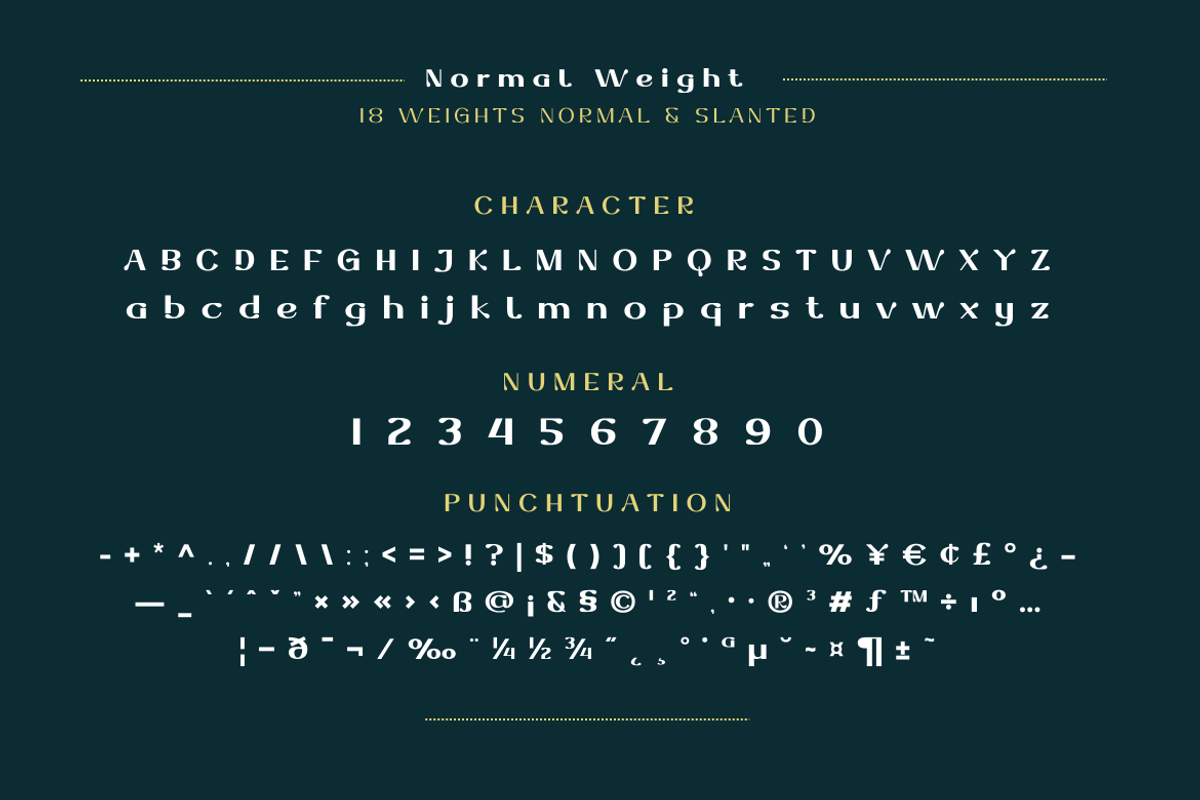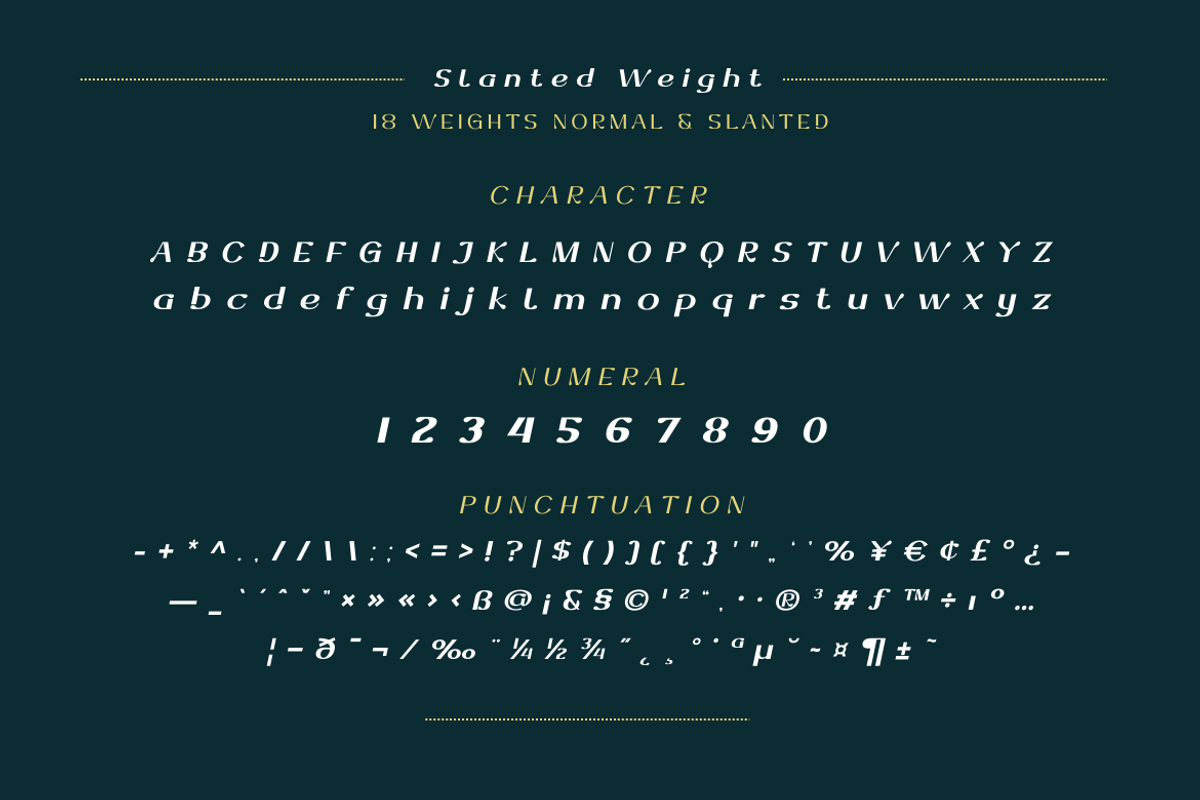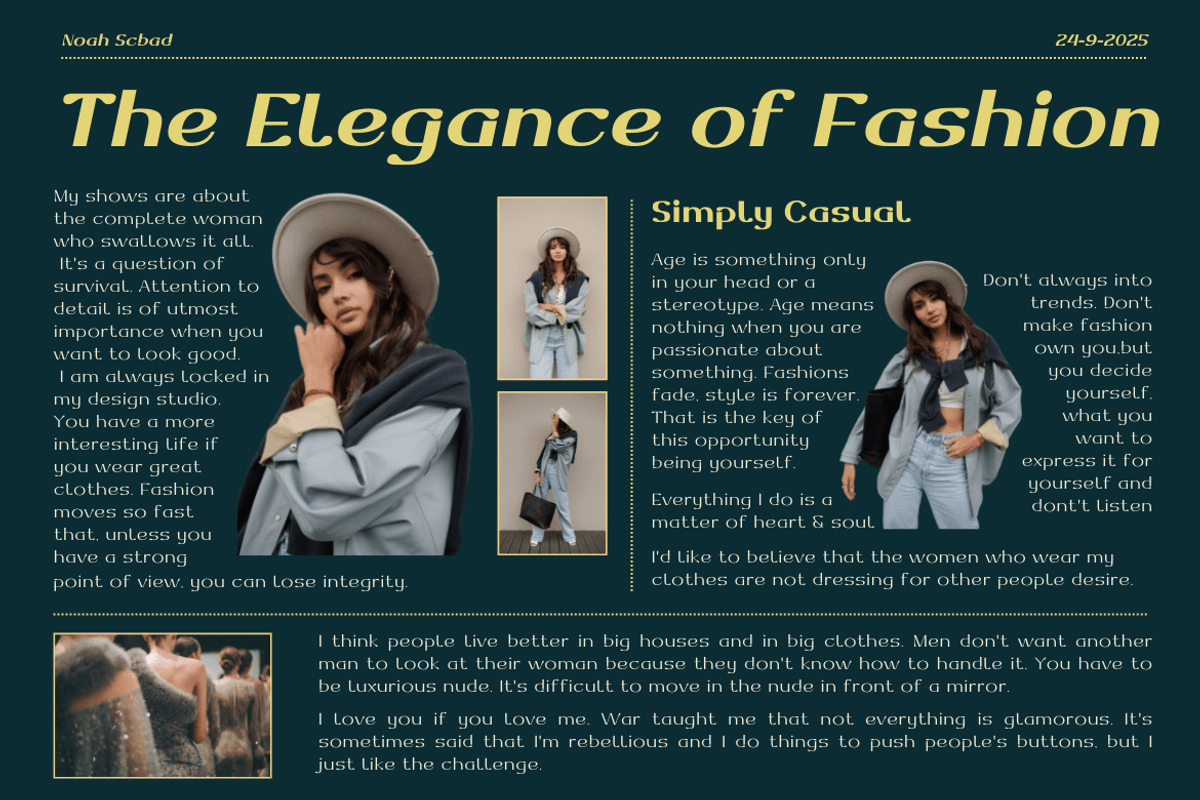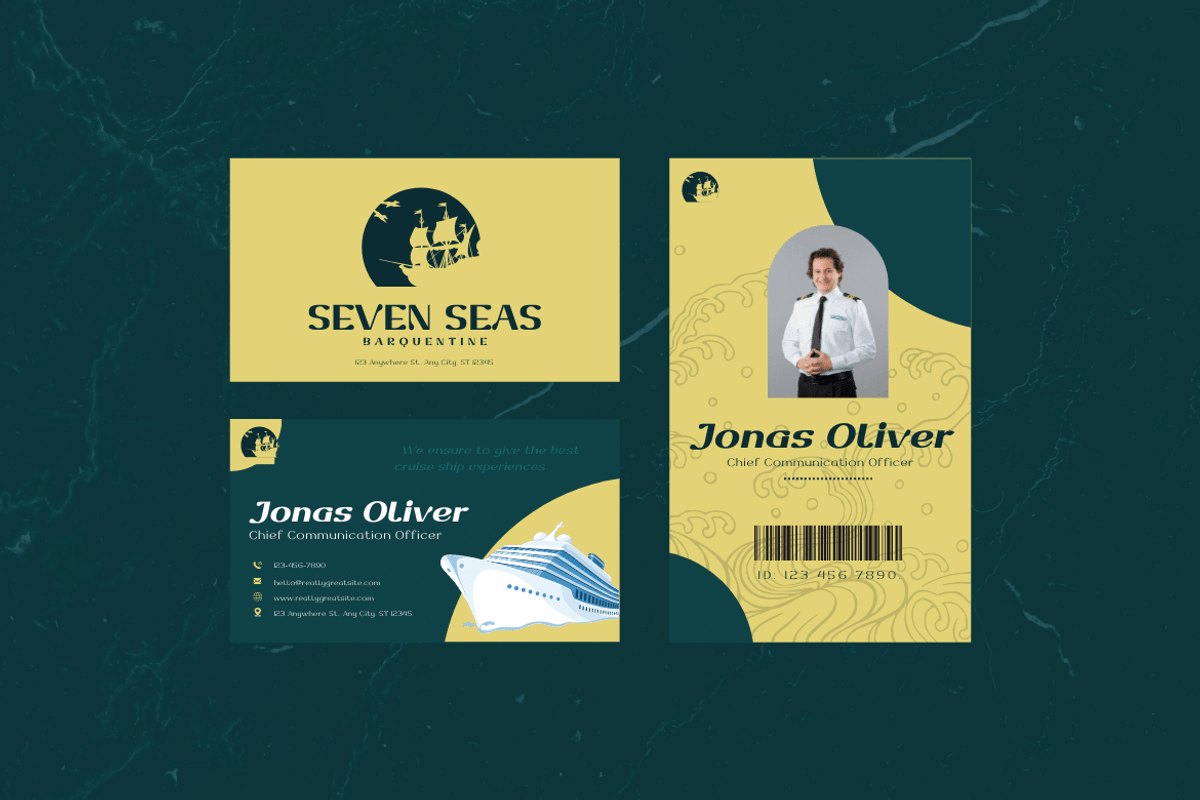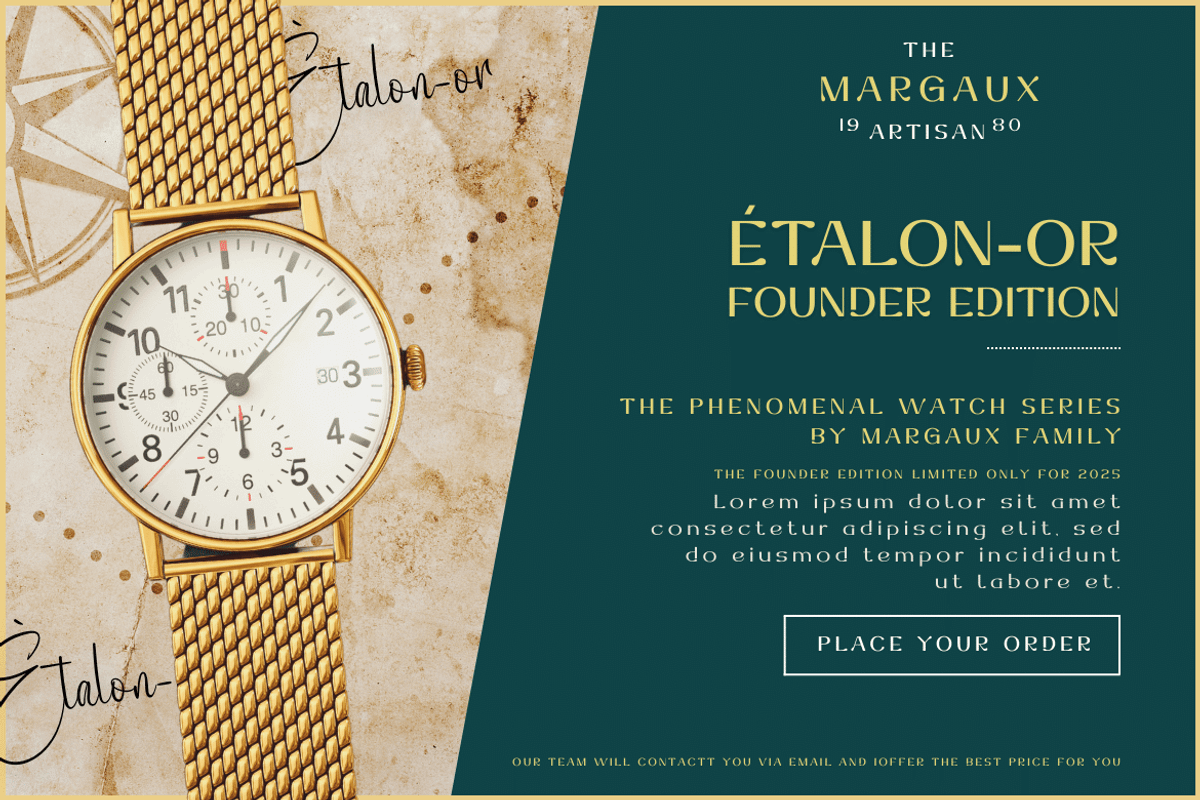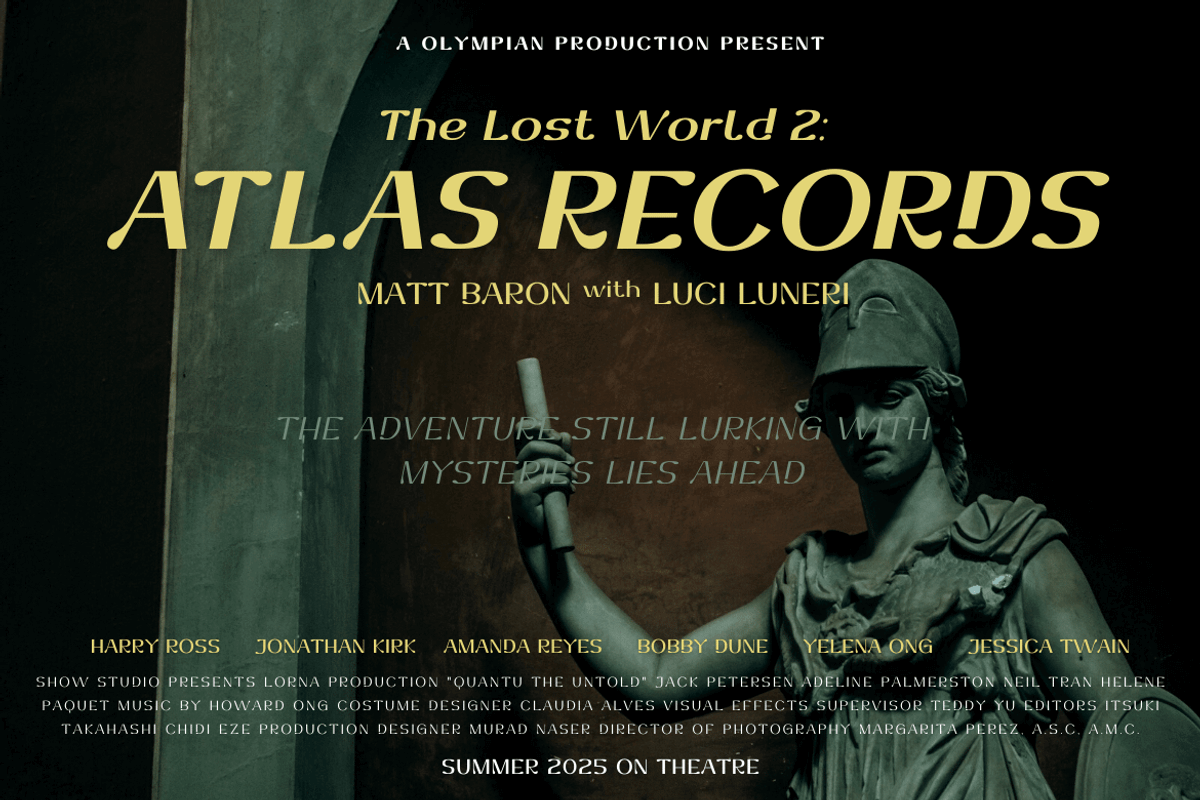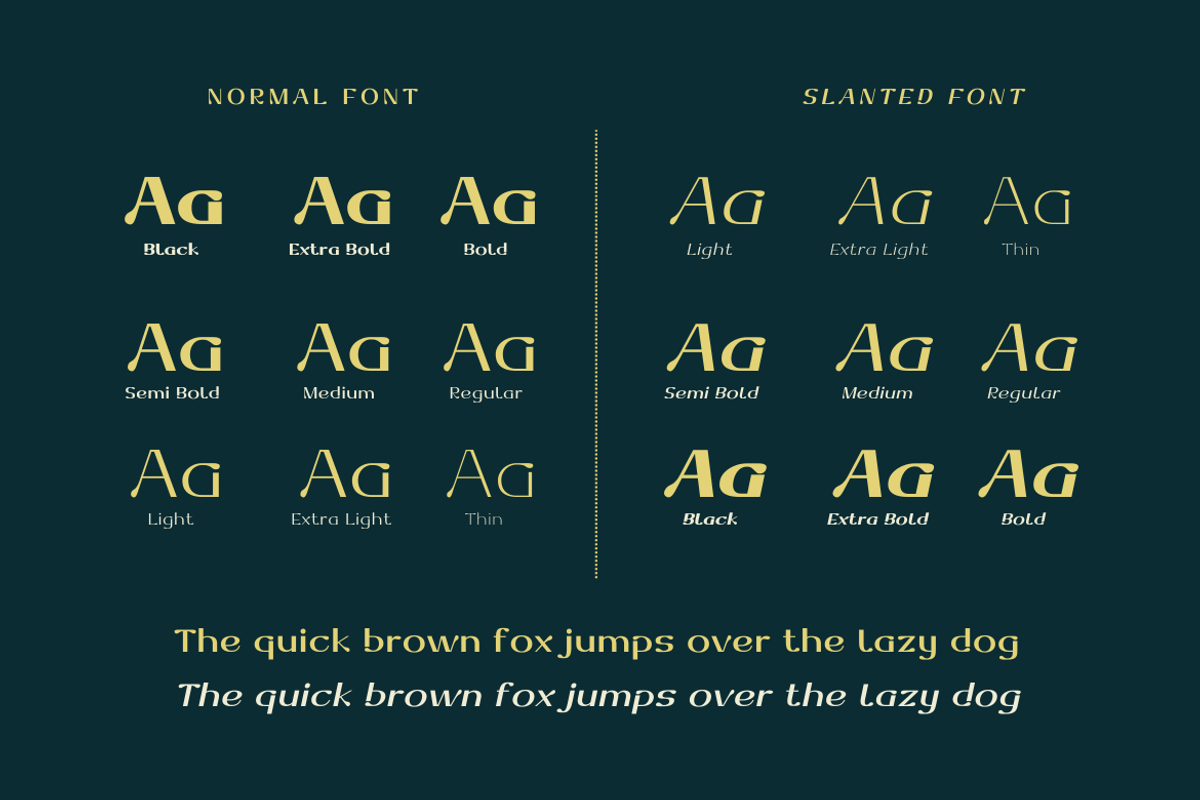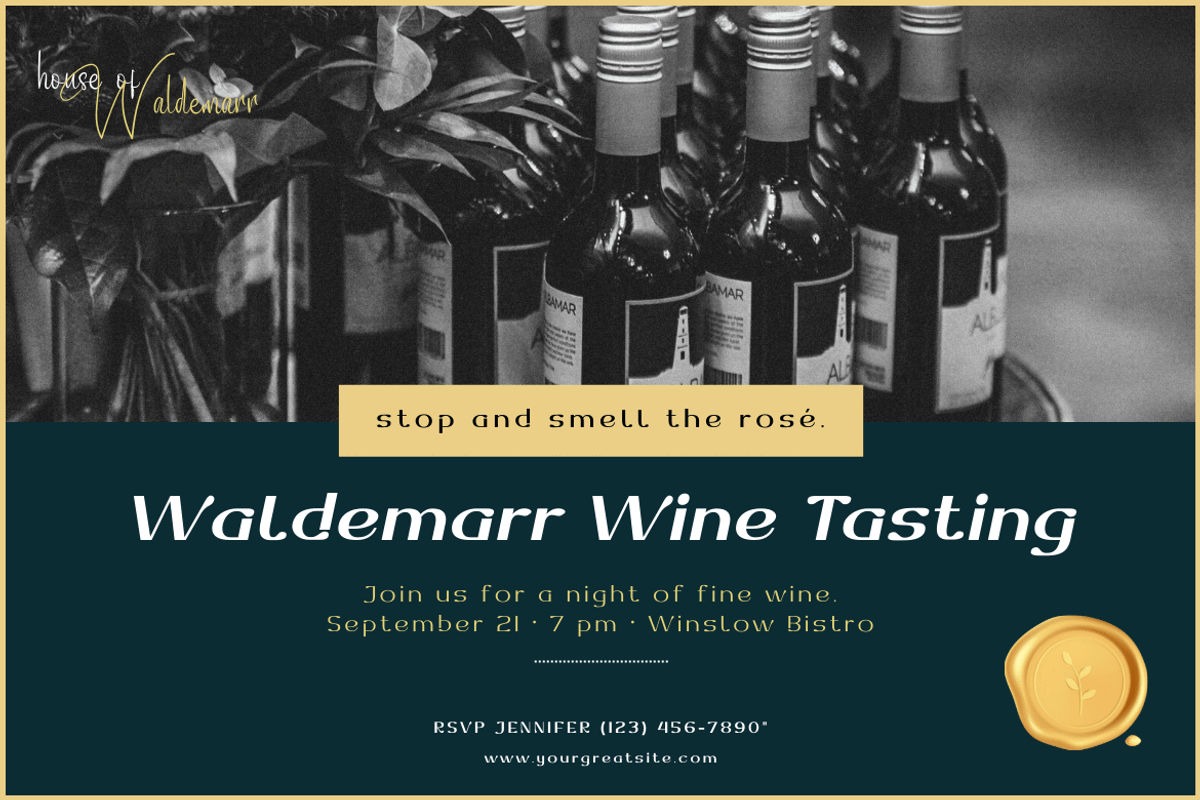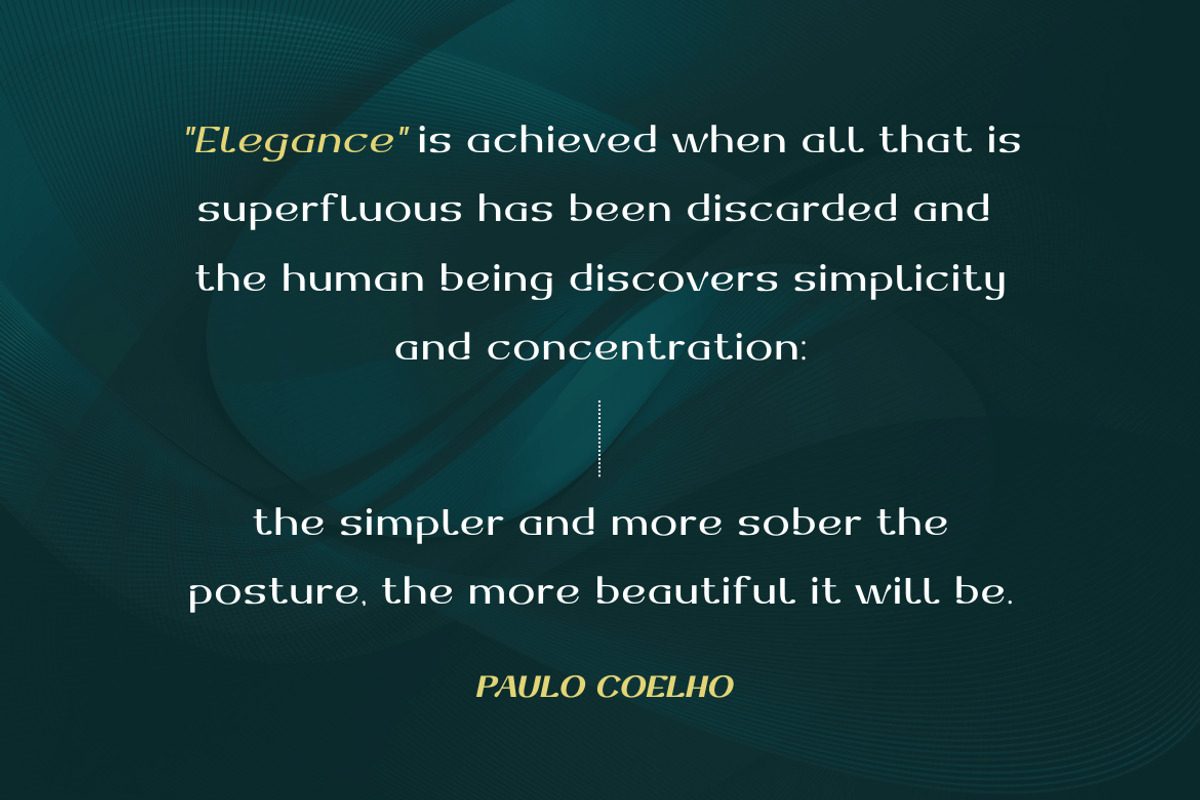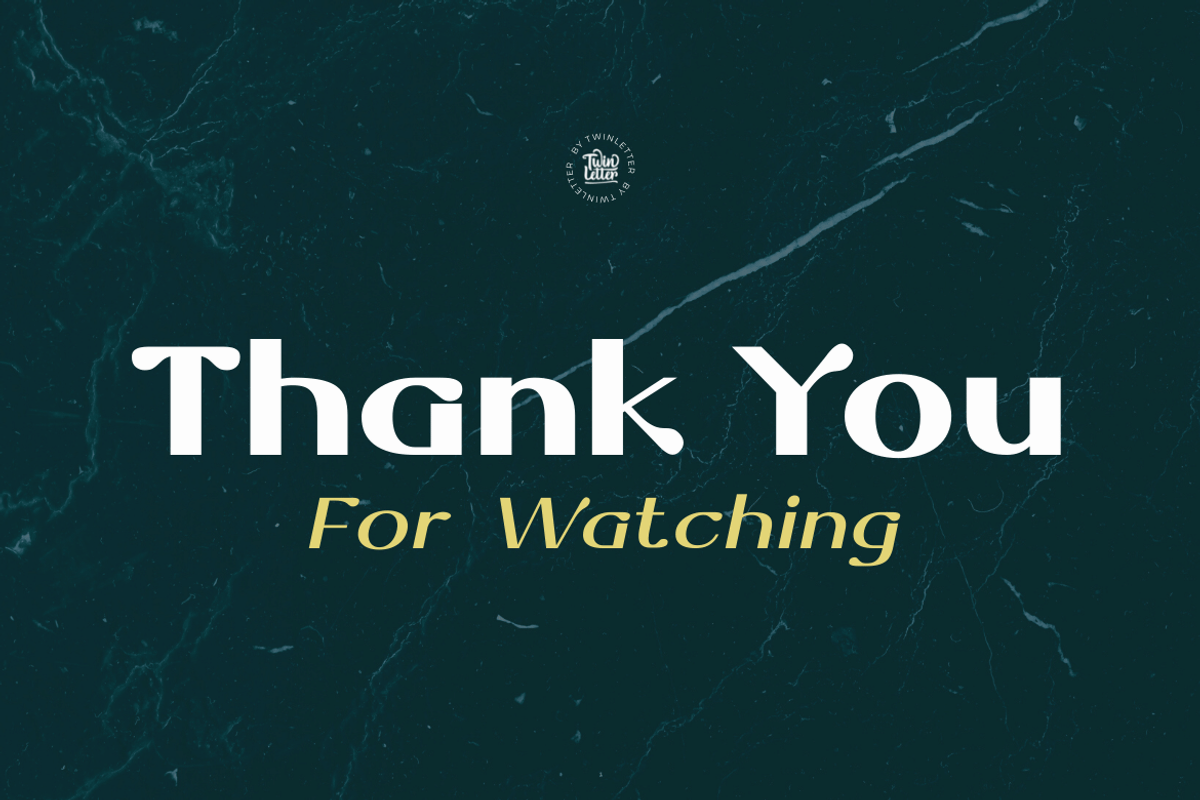
Dofend
Dofend San Serif is a luxurious font family with 18 different styles to choose from. This font is the best choice for your various design projects because of its unique personality and beauty. The entire set includes a display and sans-serif styles that are suitable for a wide range of applications, including logos and posters. Allow this font to create stunning graphic designs, banners, posters, and texts for you!
of course, your various design projects will be perfect and extraordinary if you use this font because this font is equipped with a font family, both for titles and subtitles and sentence text, start using our fonts for your extraordinary projects.